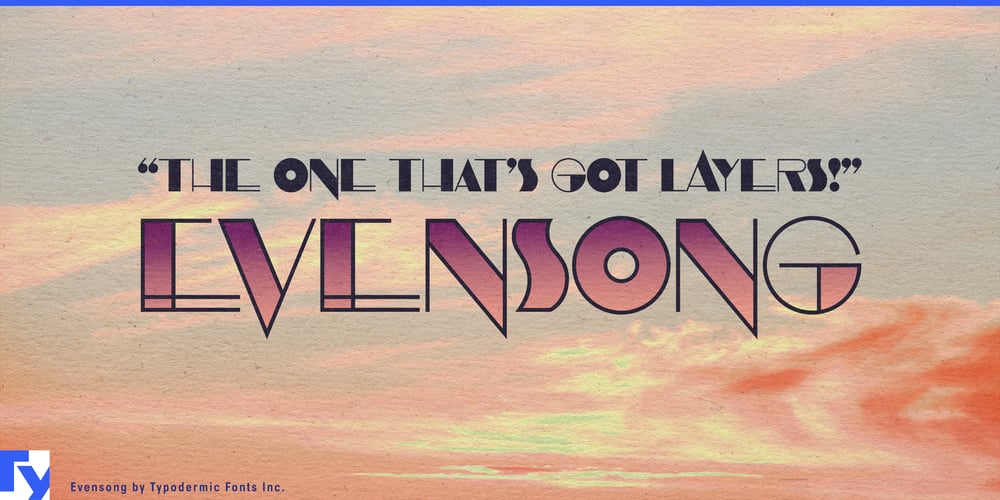
Evensong Font Family was designed by Ray Larabie and published by Typodermic. Evensong contains 3 styles and family package options. Step into the spotlight with Evensong, a typeface that reinvents Art Deco for the modern age. This isn’t your average geometric font—it’s a bold statement that pushes the boundaries of contrast and style.Evensong’s allure lies in its audacious approach to thick and thin. Each character is a study in extremes, commanding attention with dramatic shifts that refuse to be ignored. It’s typographic performance art at its finest. Designers will revel in Evensong’s playground of possibilities. Its Solid and Hollow styles can be used independently for striking headlines or layered to create depth. The Fill option adds another dimension, allowing for color experiments that transform designs from retro-chic to futuristic in an instant.With support for Latin-based European languages, Vietnamese, Greek, and most Cyrillic-based writing systems, Evensong is ready to make a statement on the global stage. From Hanoi to Paris, Moscow to New York, it speaks the language of bold design fluently. This is a typeface for those who understand that in a world of whispers, sometimes you need to shout. It’s for brands unafraid to stand out, for messages that demand to be heard, and for creatives who know true style is timeless.Evensong doesn’t just invite you to make a statement—it dares you to. When your project calls for the extraordinary, when you need a typeface as fearless as your vision, turn to Evensong.